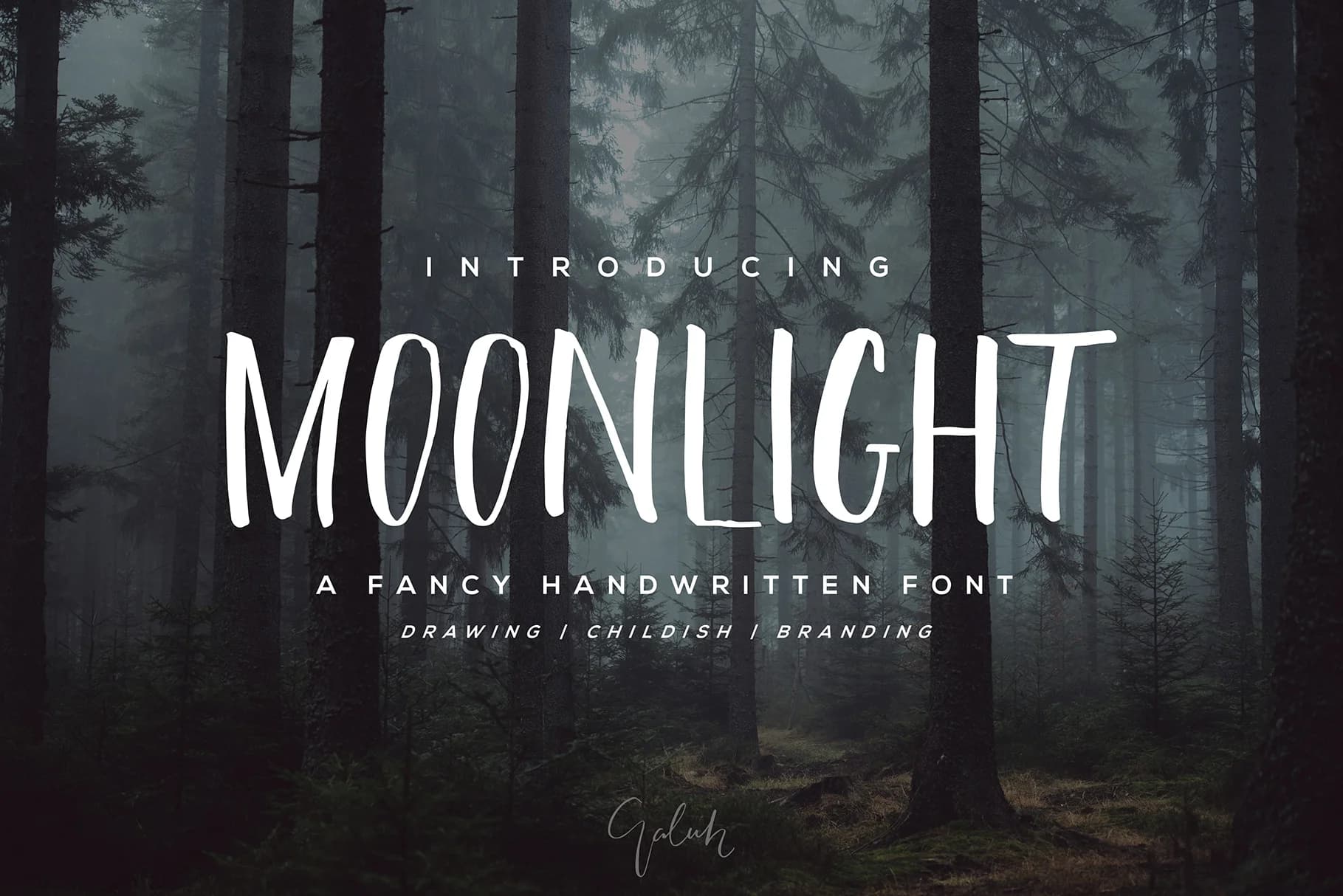
Moonlight Font by Chocotype is a brush script that brings fluid elegance to contemporary design work. With its flowing letterforms and organic character, this typeface bridges the gap between refined calligraphy and modern minimalism. The handwritten qualities make it particularly effective for projects where personal warmth matters as much as visual impact. This script works exceptionally well for wedding invitation suites, where its graceful strokes can anchor sophisticated layouts. Designers also use it for custom greeting card collections that call for an authentic, crafted feel. The font translates beautifully into luxury skincare packaging design, adding a touch of artisanal sophistication to product labels and branding materials. Event signage, from boutique restaurant menus to gallery opening announcements, benefits from the approachable elegance this typeface provides. Beyond traditional print applications, Moonlight adapts well to digital contexts where a personal, handmade aesthetic enhances brand storytelling. The letterforms maintain their distinctive character at various sizes, making it versatile across different design scales. Whether you're developing a cohesive brand identity or seeking a standout accent typeface, this brush script offers the warmth and visual interest that helps designs feel genuine rather than templated. Discover how Moonlight can bring authentic character to your next project, find it on Creative Fabrica.
Moonlight Font is a script font that shines as a display or heading face. Pair it with a clean sans-serif or serif font for body text β the contrast creates a clear hierarchy while the two styles stay balanced and easy to read.
Moonlight Font
by Chocotype